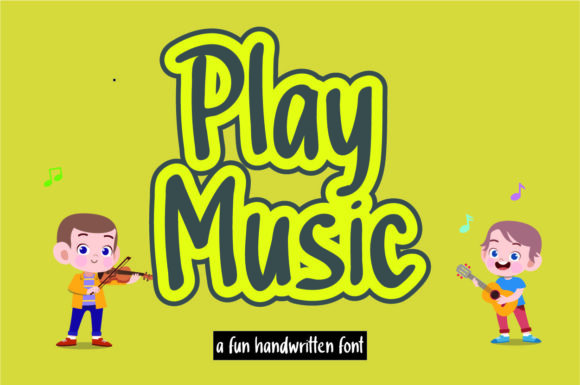
Welcome to the enchanting world of Play Music Font, a script font crafted with whimsy and a relaxed theme. Immerse yourself in the beauty of its lovely style, meticulously designed to add a touch of charm and elegance to your creations.
Step into a realm where words dance with grace and emotions flow freely. Play Music Font is not just a mere font; it's an artistic expression, a melody of letters that will transform your designs into enchanting symphonies. Say goodbye to ordinary typography and embrace the extraordinary with Play Music Font.
As a script font, Play Music Font exudes a sense of informality and playfulness, making it a perfect choice for adding a personal touch to your projects. Its relaxed theme invites you to let your creativity soar, whether you're designing invitations, posters, logos, or any other visual masterpiece.
No matter the topic or occasion, Play Music Font has the innate ability to elevate your creations to new heights. Its versatility knows no bounds, making it a valuable asset to your font library. Let your imagination run wild and explore endless possibilities, from heartfelt quotes to enchanting stories, with Play Music Font as your faithful companion.
Created by the talented Soegih Artwork, Play Music Font is a testament to artistic brilliance. Each letter has been meticulously crafted to embody a sense of movement and fluidity, capturing the essence of a musical composition. Experience the harmony of form and function as Play Music Font dances across your screen, leaving an unforgettable impression.
Elevate your designs to the next level with Play Music Font, the script font that's sure to leave your audience spellbound. Its emotional appeal and creative potential will unlock new dimensions of visual storytelling, leaving a lasting impact on all who behold your creations.
Don't settle for ordinary fonts; embrace the extraordinary with Play Music Font. Let your creativity take center stage and transform your designs into awe-inspiring works of art.